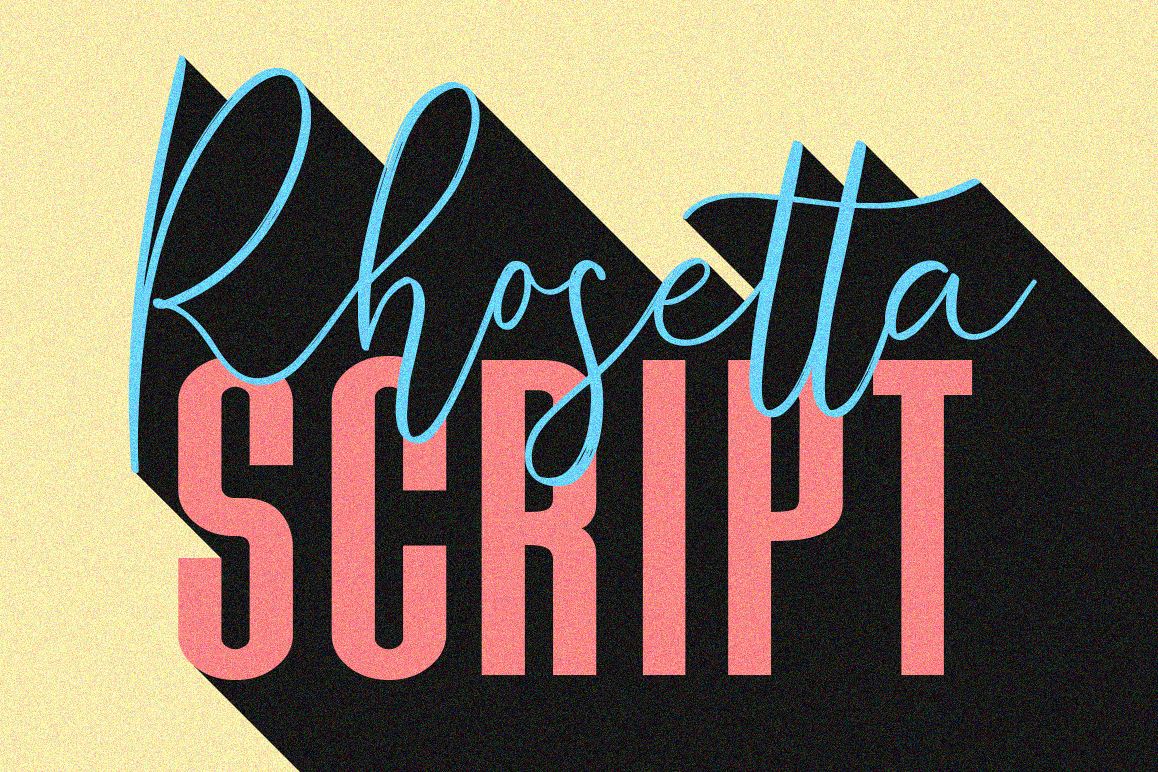
Give your designs an authentic brush handcrafted feel."Rhosetta" is perfectly suited to signature, stationery, logo, typography quotes, magazine or book cover, website header, clothing, branding, packaging design and more.This font available: